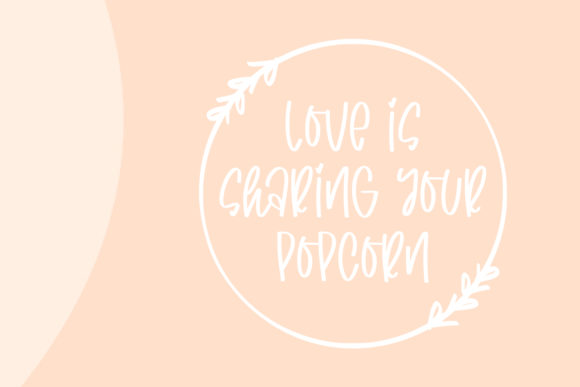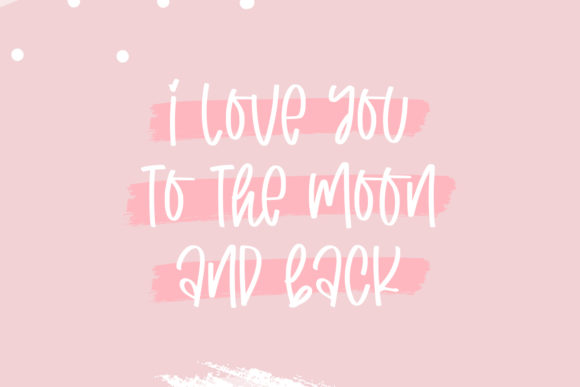
Cheerful Girl Font
db-ku.com - Script & Handwritten -- Cheerful Girl is a sweet, quirky and relaxed handwritten font, designed with the help of a brush pen.